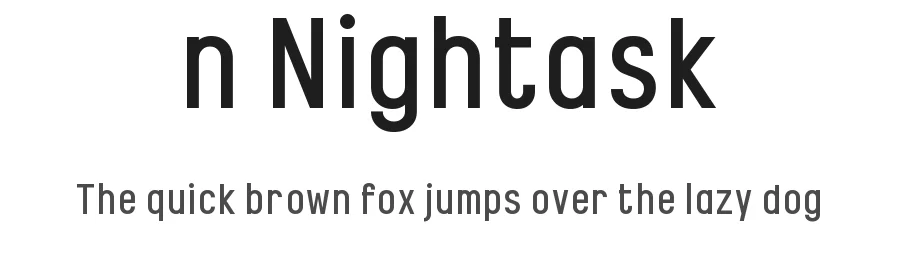
About Iosevka Aile Font
Iosevka Aile is a sans-serif font designed by Belleve Invis. It includes 38447 glyphs, a regular weight, TTF (TrueType) format, and 585 languages. Iosevka Aile is free to download; check the license details on this page before commercial use. Sans-serif fonts like Iosevka Aile work best for clean body text, user interfaces, branding, and modern layouts.
- Clean, Modern, Monospace
| Designer | Belleve Invis |
Iosevka Aile ships with 6 OpenType features you can switch on in apps that support them (Illustrator, InDesign, Affinity, Figma, CSS font-feature-settings).
- Lining figures
- Stylistic sets (19)
Iosevka Aile supports 585 languages.
Iosevka Aile Font is a versatile sans-serif font that works for both headings and body text. Pair it with a contrasting serif or slab serif font to add visual interest and a clear distinction between titles and body copy.
Iosevka Aile Font
Iosevka Aile Font is a sans serif typeface by Belleve Invis, ideal for logos, invitations, branding, and creative projects.